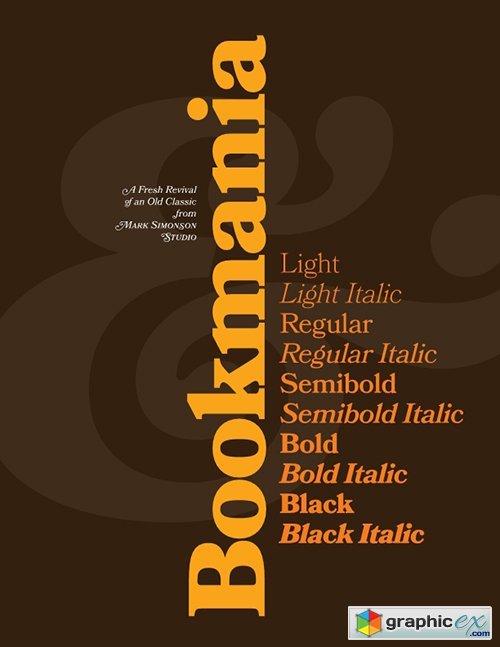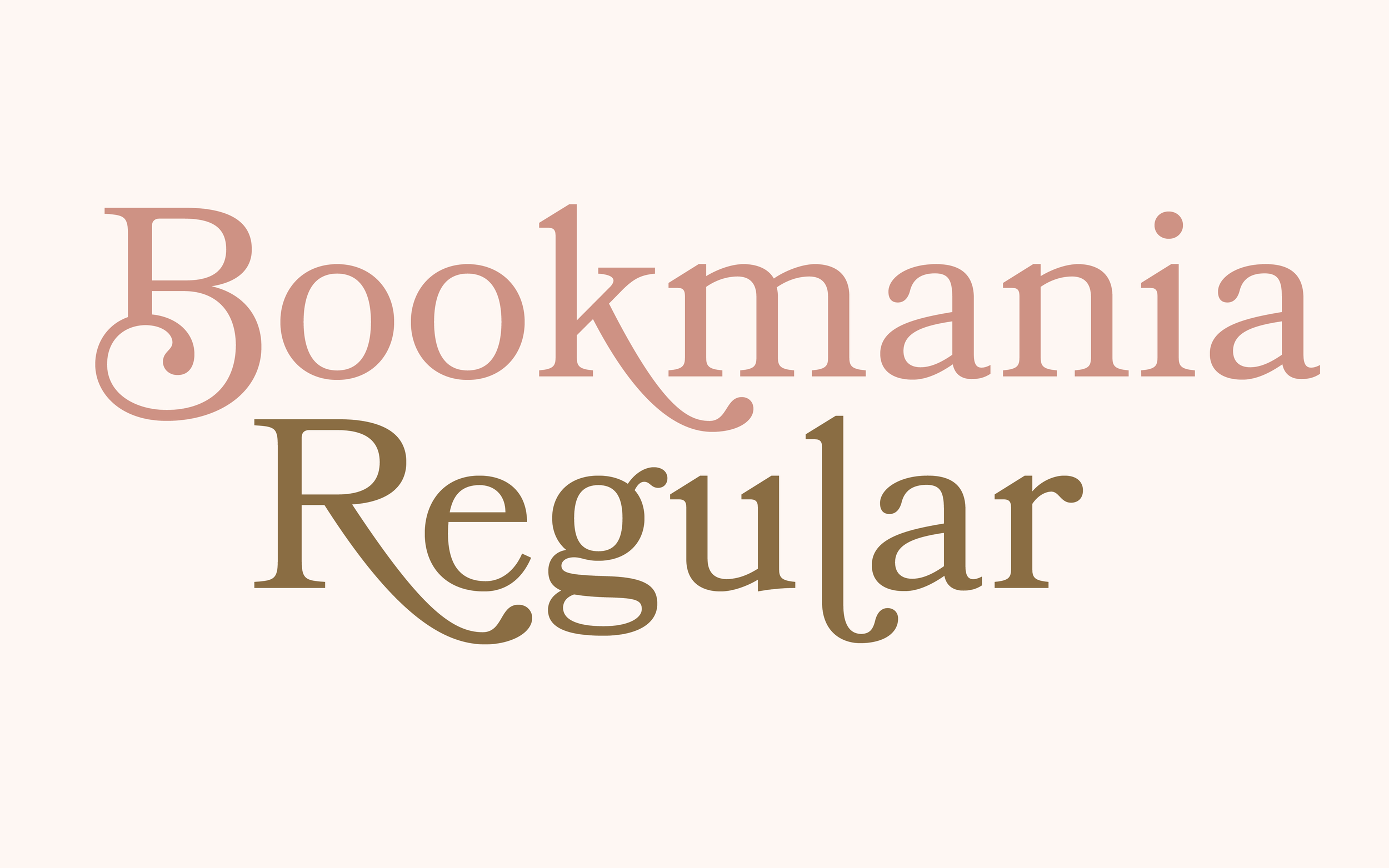
Bookmania Free Font
Bookmania Free Font - Web bookmania includes all the features you would expect in a modern digital font family. Web explore bookmania designed by mark simonson at adobe fonts. A serif typeface with 10 styles, available from adobe fonts. Thanks very much to mark.
A serif typeface with 10 styles, available from adobe fonts. Web bookmania includes all the features you would expect in a modern digital font family. Web explore bookmania designed by mark simonson at adobe fonts. Thanks very much to mark.
Web explore bookmania designed by mark simonson at adobe fonts. Thanks very much to mark. A serif typeface with 10 styles, available from adobe fonts. Web bookmania includes all the features you would expect in a modern digital font family.
Thanks very much to mark. Web bookmania includes all the features you would expect in a modern digital font family. Web explore bookmania designed by mark simonson at adobe fonts. A serif typeface with 10 styles, available from adobe fonts.
Web bookmania includes all the features you would expect in a modern digital font family. Web explore bookmania designed by mark simonson at adobe fonts. A serif typeface with 10 styles, available from adobe fonts. Thanks very much to mark.
Thanks very much to mark. Web bookmania includes all the features you would expect in a modern digital font family. Web explore bookmania designed by mark simonson at adobe fonts. A serif typeface with 10 styles, available from adobe fonts.
Web bookmania includes all the features you would expect in a modern digital font family. Web explore bookmania designed by mark simonson at adobe fonts. Thanks very much to mark. A serif typeface with 10 styles, available from adobe fonts.
Thanks very much to mark. Web explore bookmania designed by mark simonson at adobe fonts. A serif typeface with 10 styles, available from adobe fonts. Web bookmania includes all the features you would expect in a modern digital font family.
A serif typeface with 10 styles, available from adobe fonts. Web bookmania includes all the features you would expect in a modern digital font family. Thanks very much to mark. Web explore bookmania designed by mark simonson at adobe fonts.
Thanks very much to mark. Web bookmania includes all the features you would expect in a modern digital font family. A serif typeface with 10 styles, available from adobe fonts. Web explore bookmania designed by mark simonson at adobe fonts.
Web bookmania includes all the features you would expect in a modern digital font family. Thanks very much to mark. A serif typeface with 10 styles, available from adobe fonts. Web explore bookmania designed by mark simonson at adobe fonts.
Web bookmania includes all the features you would expect in a modern digital font family. A serif typeface with 10 styles, available from adobe fonts. Thanks very much to mark. Web explore bookmania designed by mark simonson at adobe fonts.
Web Explore Bookmania Designed By Mark Simonson At Adobe Fonts.
A serif typeface with 10 styles, available from adobe fonts. Web bookmania includes all the features you would expect in a modern digital font family. Thanks very much to mark.